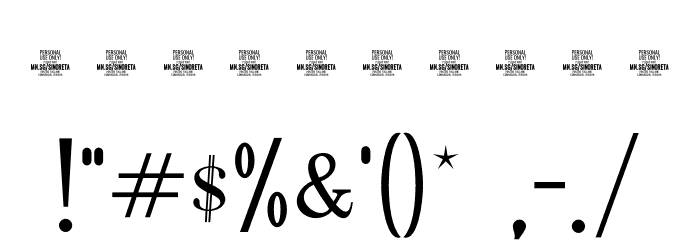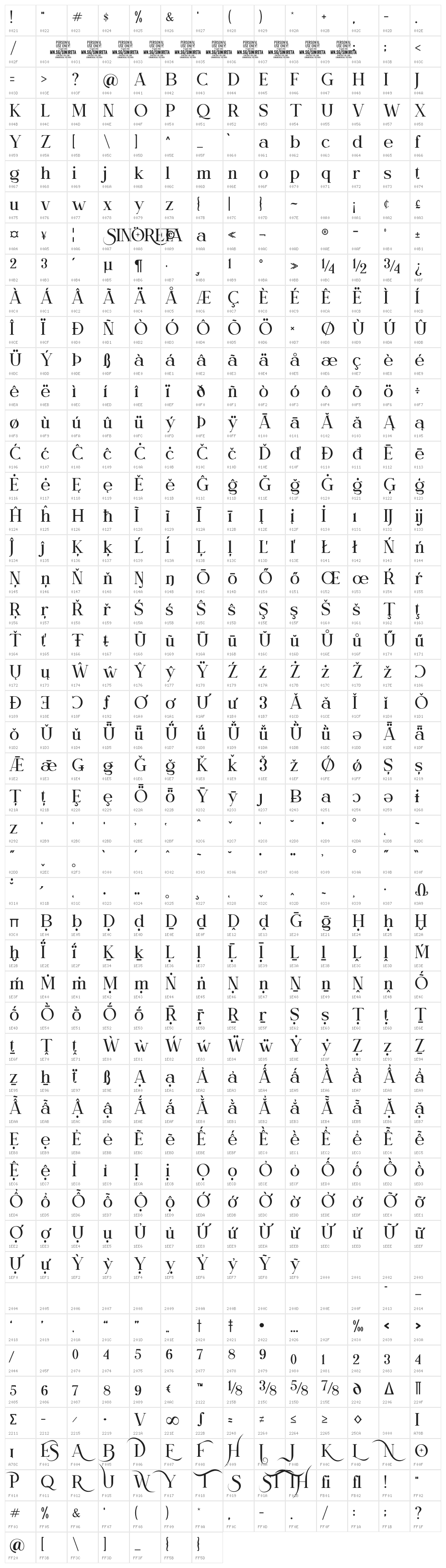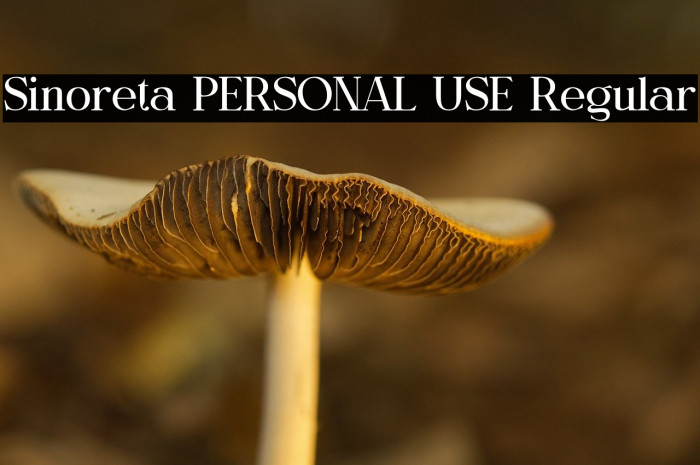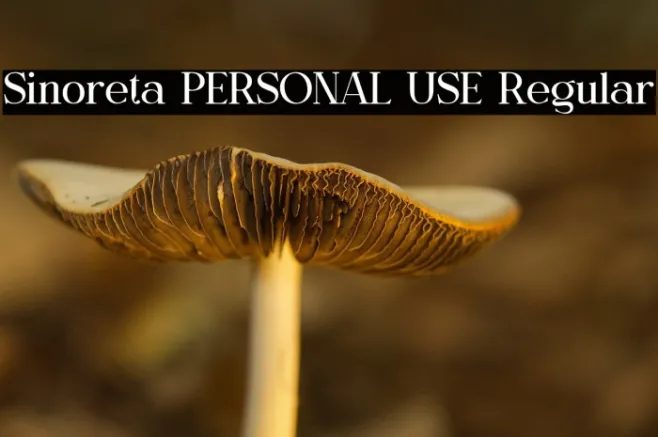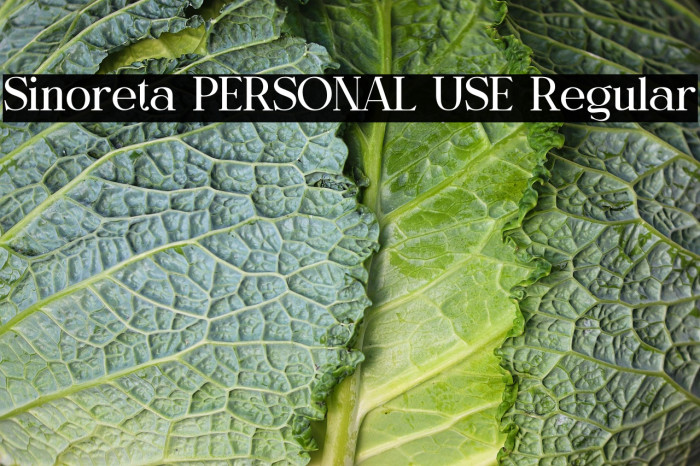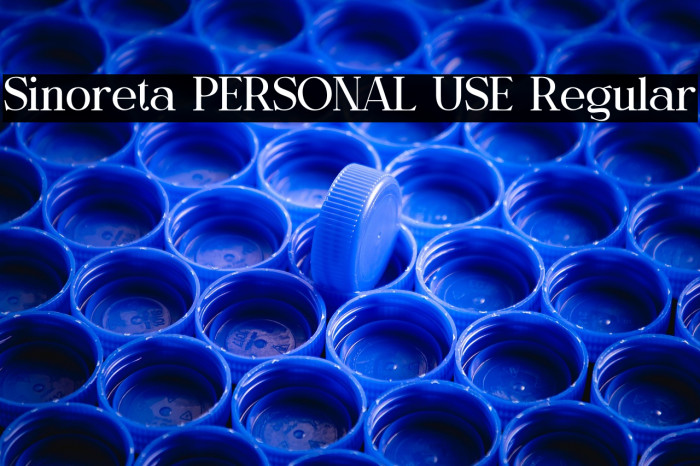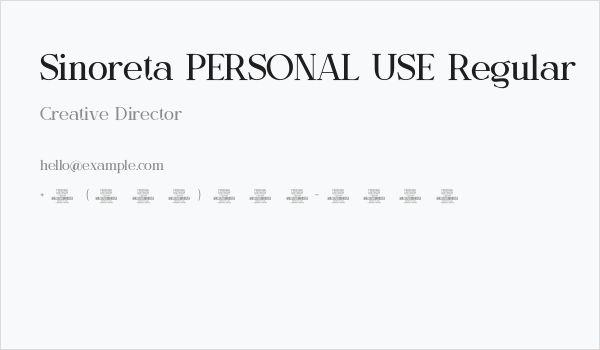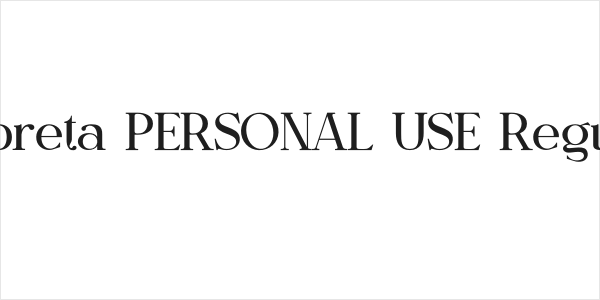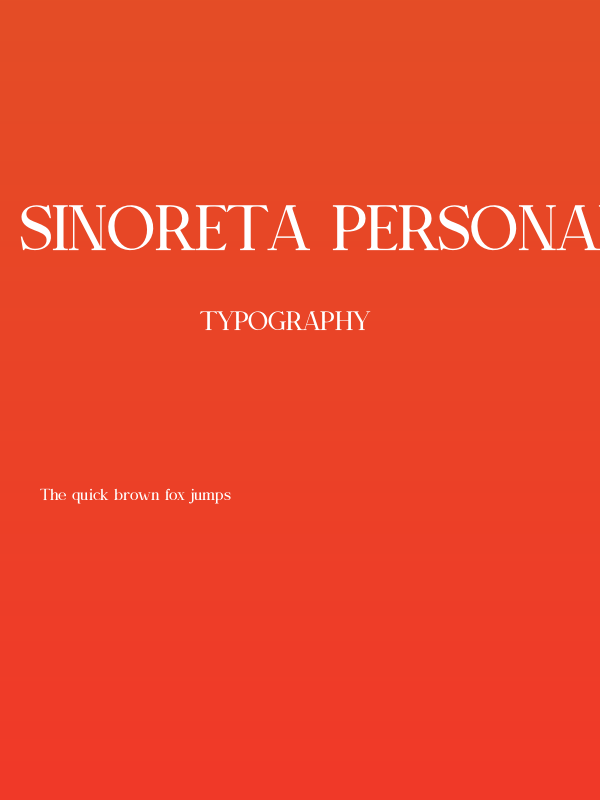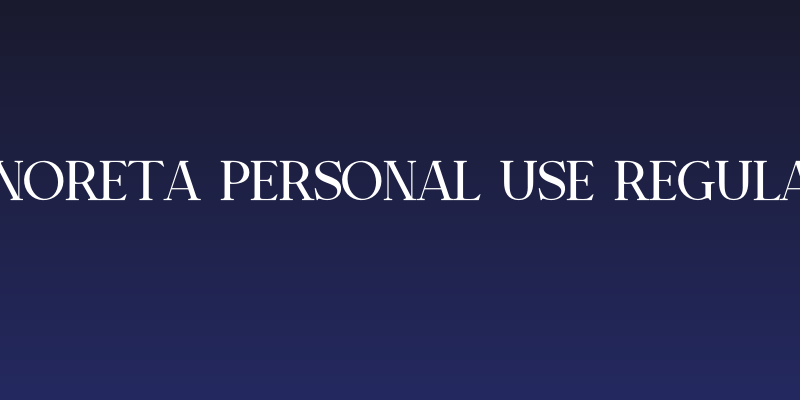
Sinoreta PERSONAL USE Regular Font
Sinoreta PERSONAL USE Regular Description
This font features a classic serif design with elegant and refined strokes. The uppercase letters are tall and stately, with a slight contrast in stroke width that adds sophistication. The lowercase letters maintain a consistent style, offering a harmonious blend of curves and straight lines. The numerals are clear and balanced, ensuring readability. Special characters are designed with the same attention to detail, making them suitable for various applications. Overall, this font exudes a timeless elegance, perfect for projects requiring a touch of class and tradition.